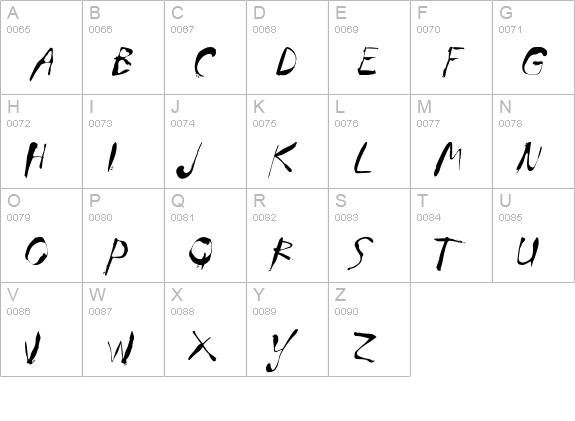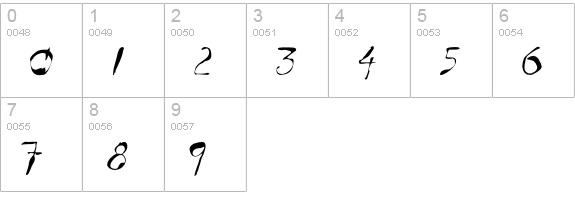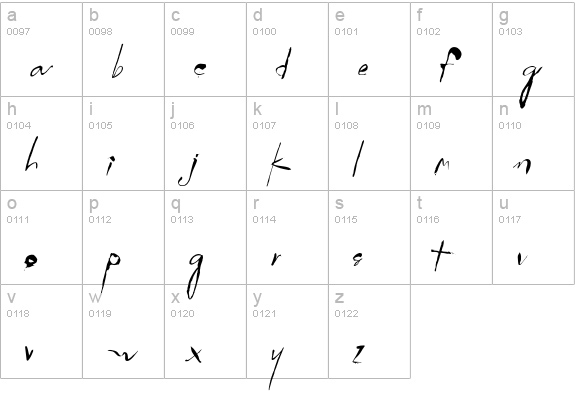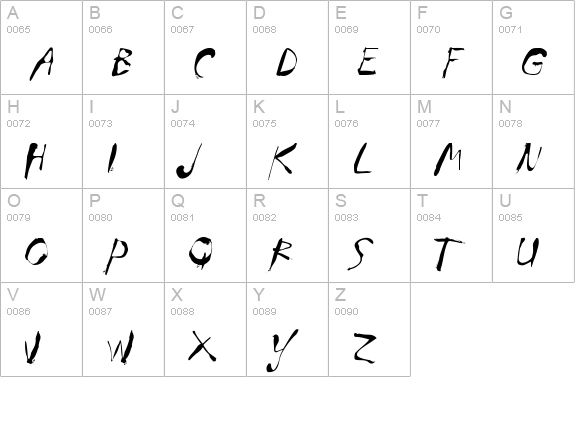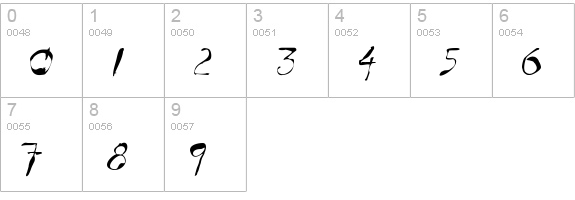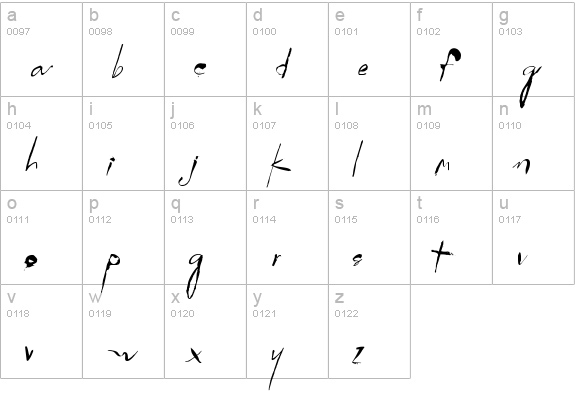
STROKE-ThicK Font Details
Introducing STROKE-ThicK font, a bold and impactful typeface designed to make a statement in your design projects. With its strong strokes and thick lines, this font is perfect for creating eye-catching headlines and titles that demand attention. STROKE-ThicK font is versatile and can be used in a variety of design applications, from posters and flyers to logos and branding. Its clean and modern aesthetic will add a touch of sophistication to any project. What's more, STROKE-ThicK font is available for free download at FontsMarket.com, making it easily accessible for designers looking to enhance their creative work with a standout typeface. Don't miss out on the opportunity to elevate your designs with this stylish and distinctive font. Download STROKE-ThicK today and unleash your creativity!